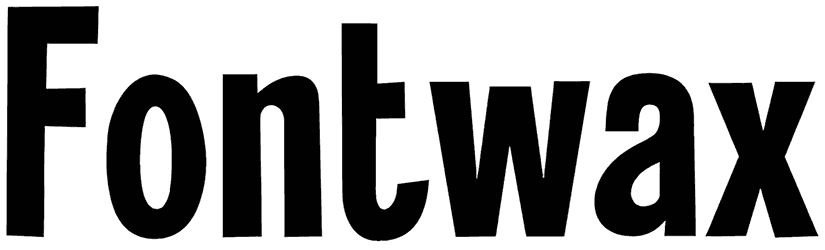
Fontwax Font
Fontwax is a large and bold font with huge and thick letters, which can attract attention in a far-reaching size and convey a feeling of power to the audience.
The understated nature of this sans serif font makes it an ideal choice for headlines, emphatic words, and anywhere that needs a lot of attention. What makes this font a completely safe, reliable, and solid choice, despite not having numbers, is the straight lines and simple shape of its letters.